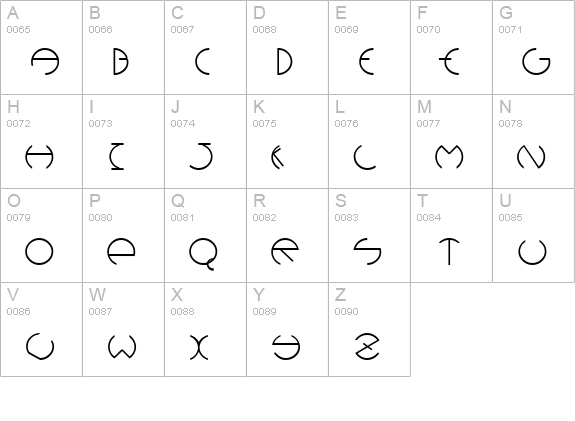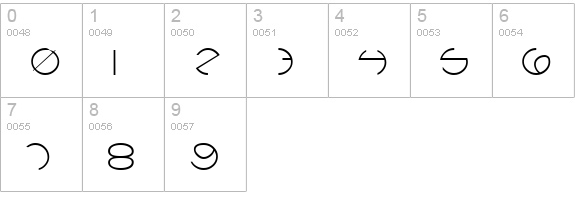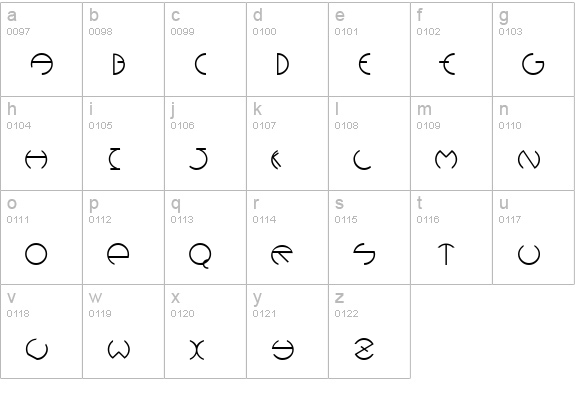
DebevicDeco Font Details
DebevicDeco font is a stunning display typeface that exudes a sense of vintage elegance and retro charm. With its unique Art Deco-inspired design, this font is perfect for creating eye-catching headlines, posters, and branding materials. Its bold and distinct letterforms make a powerful statement, while its intricate details add a touch of sophistication. The best part? DebevicDeco font is available for free download at FontsMarket.com, making it easily accessible to designers and creatives looking to elevate their projects with a touch of timeless style. Whether you're working on a classic art deco-inspired design or looking to add a hint of nostalgia to your work, DebevicDeco font is sure to make a lasting impression. Unlock the beauty of this stunning typeface today and bring your designs to life with a touch of vintage flair.